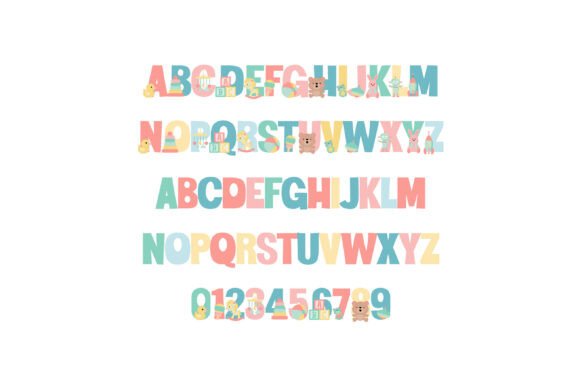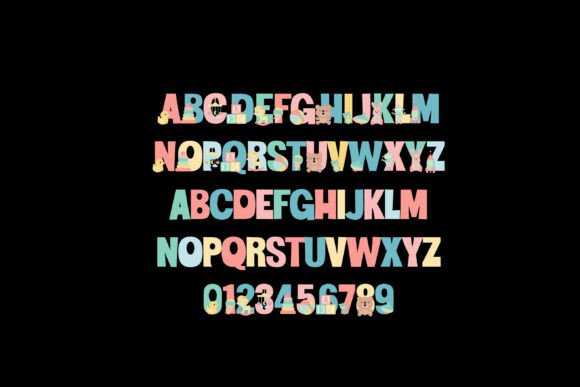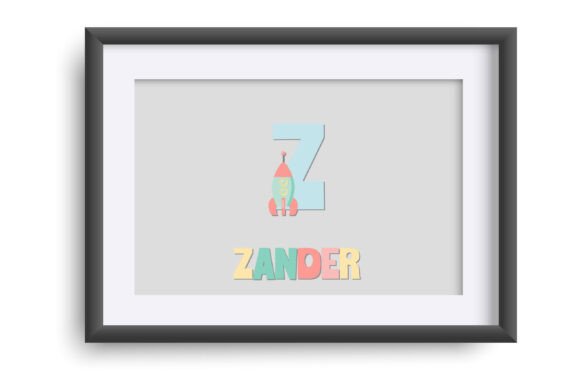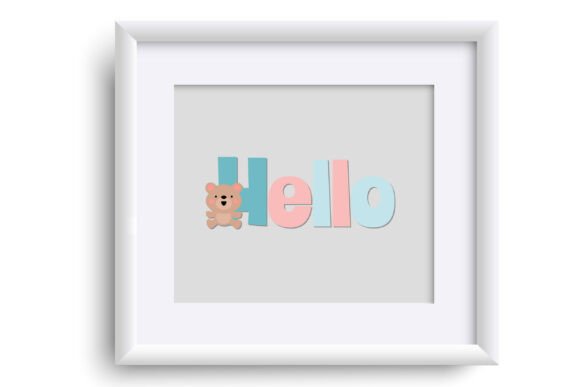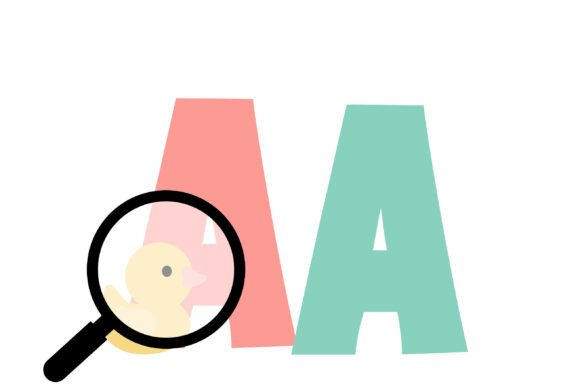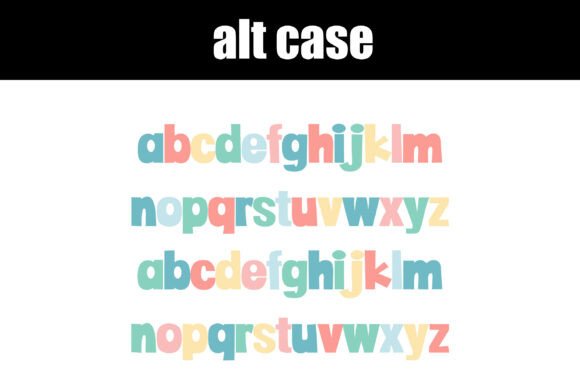
Introduction to Pipsqueak Toys Font
Unlock a world of playtime wonder with Pipsqueak Toys, a charming full-color SVG font designed for the young and young-at-heart.
This collection features bold, clean-lined block letters beautifully integrated with hand-illustrated childhood classics—from rubber duckies and rocking horses to building blocks and plush bunnies With its “nursery-playtime” soul and gentle rhythm, Pipsqueak Toys is the premier choice for independent toy brand logos, whimsical children’s room signage, personalized birthday stationery, and engaging “family-lifestyle” social media headers.